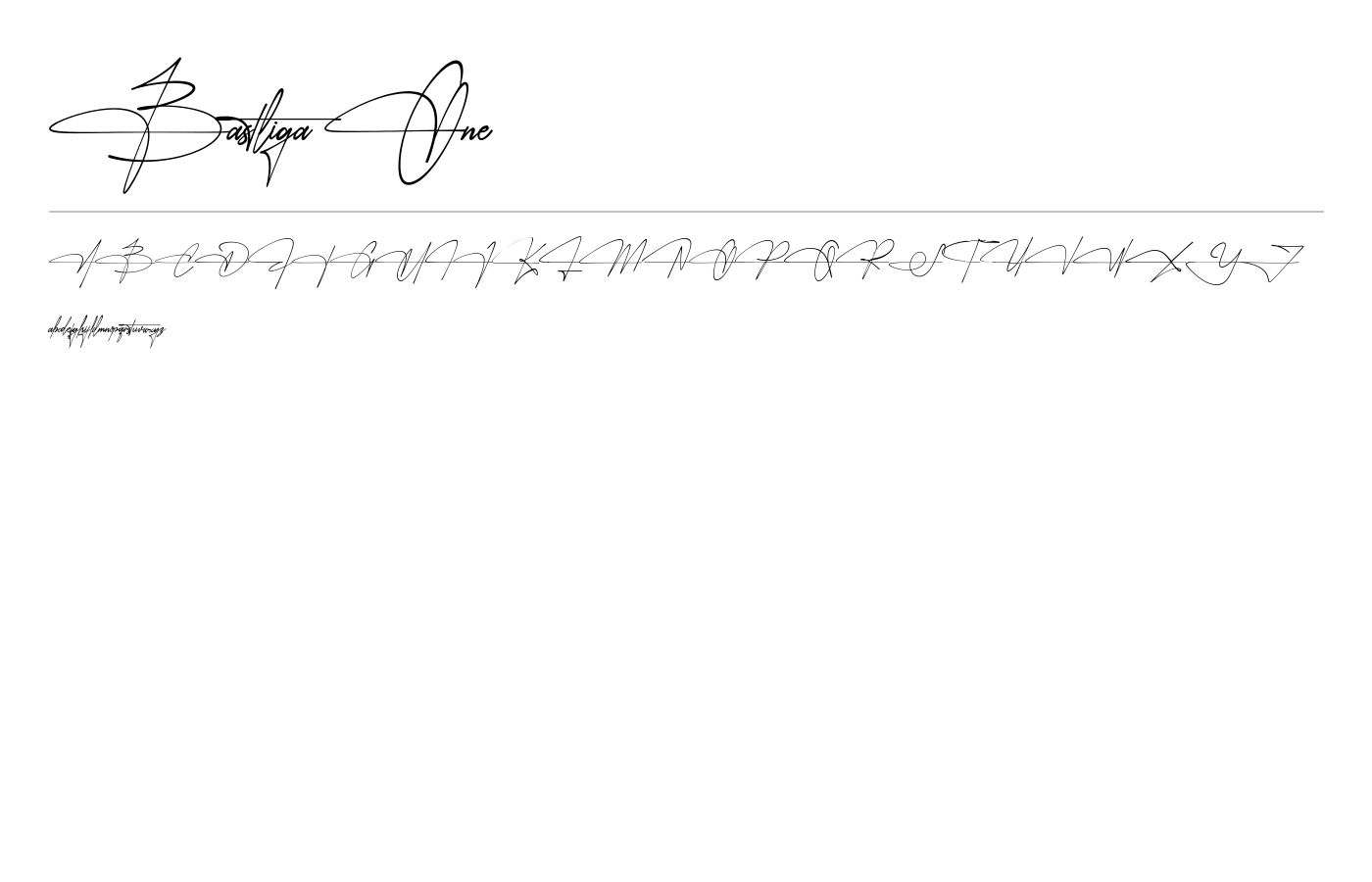
Bastliga One is a delicate, ultra-light handwritten script font featuring graceful, elongated strokes and a fluid, airy style. Its elegant, flowing letterforms give it a sophisticated, artistic personality ideal for luxury branding, invitations, and personalized logos where a refined, creative touch is desired. This font works best in large display contexts, adding a unique, stylish flair without overwhelming the design.
Bastliga One Font
About Bastliga One Font